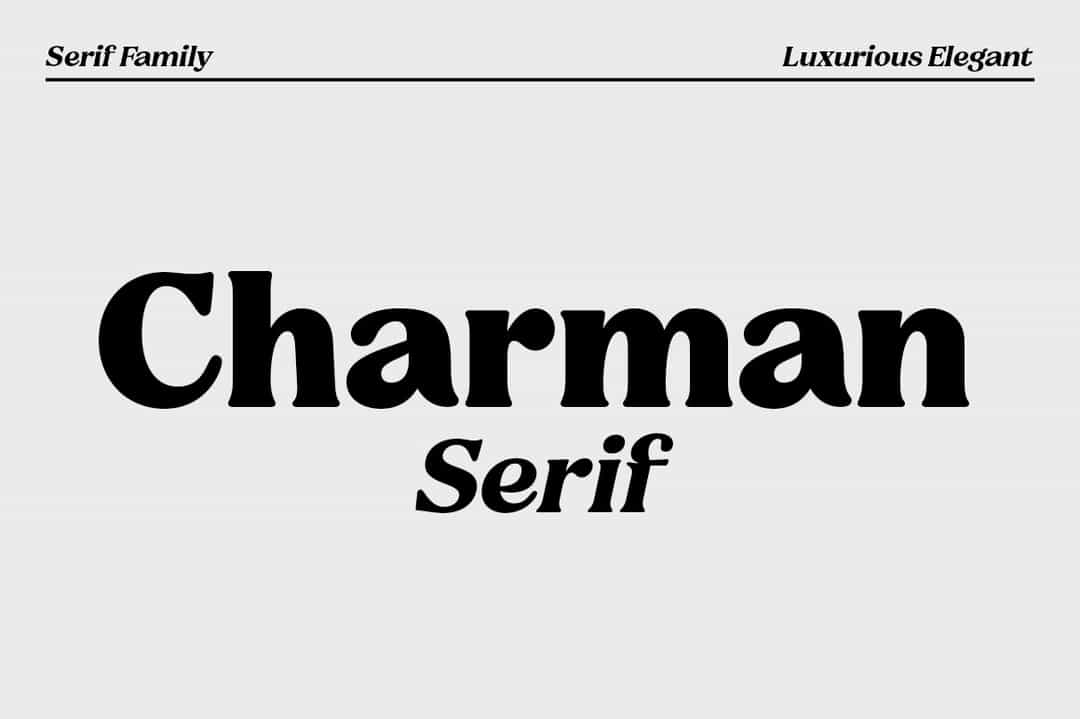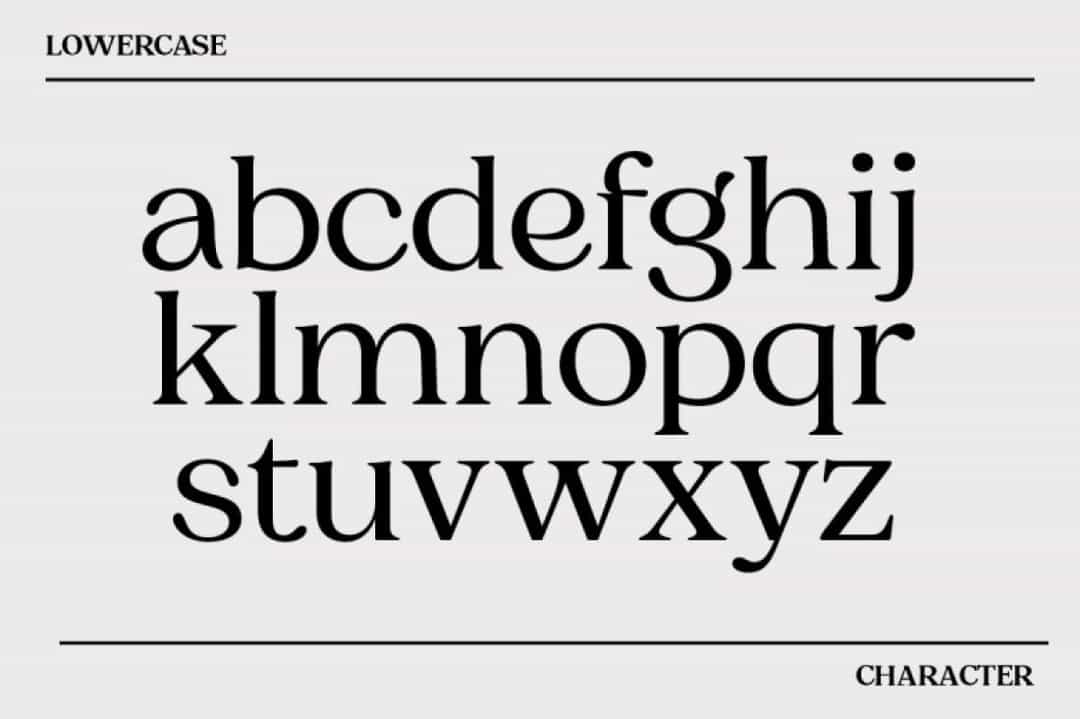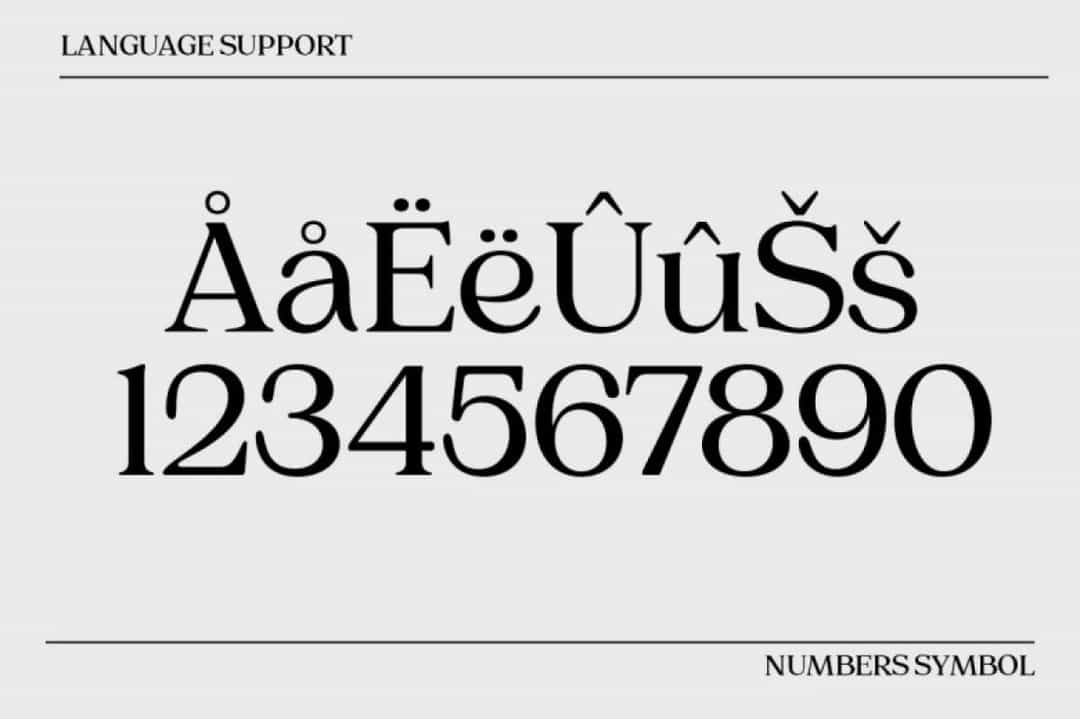
Charman Font
Charman is an elegant serif typeface available in 20 weights. Designed to evoke nature and convey softness and natural expression, its emphasis lies on usability-oriented design that serves as both an unassuming tool and elegant communicator.